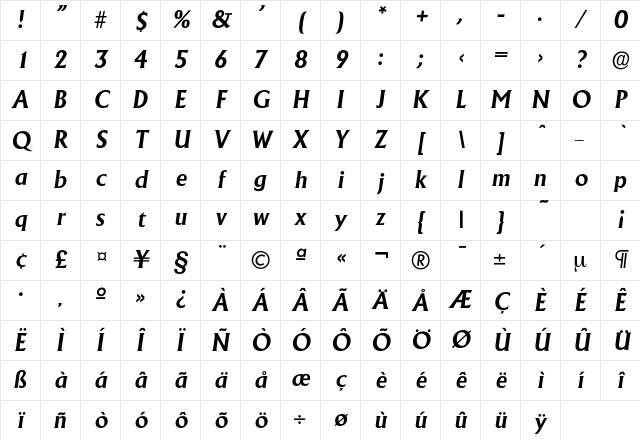
Complete Adelon-DemiBoldIta Regular glyph index. Displaying only characters natively supported by Adelon-DemiBoldIta Regular font.
Adelon-DemiBoldIta is a composed and adaptable typeface that performs quietly and consistently across a wide range of design contexts. Its bold stroke weight gives it real presence on the page.